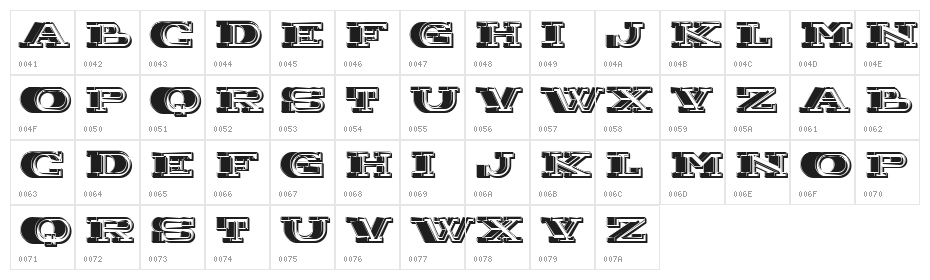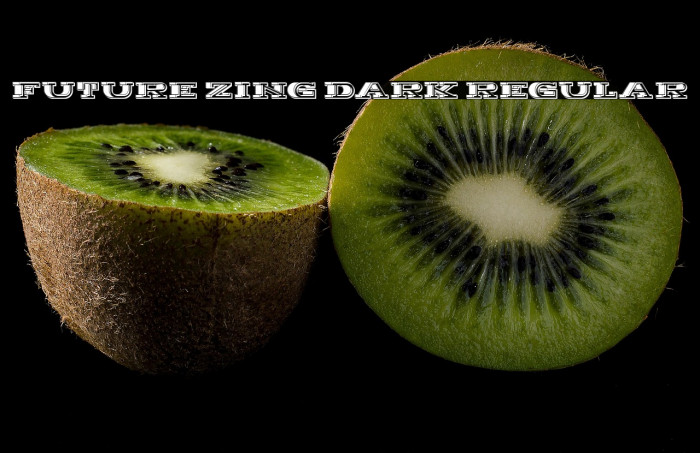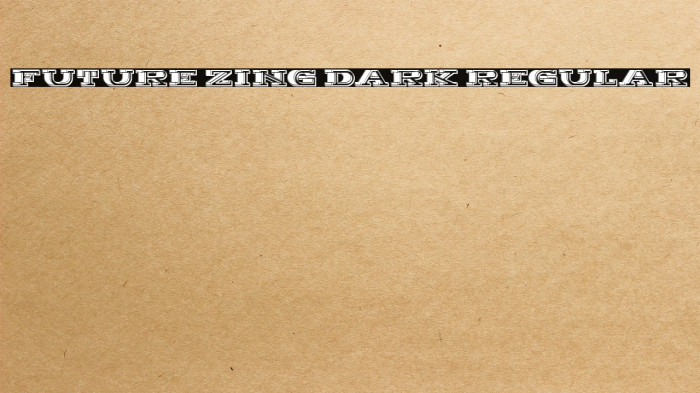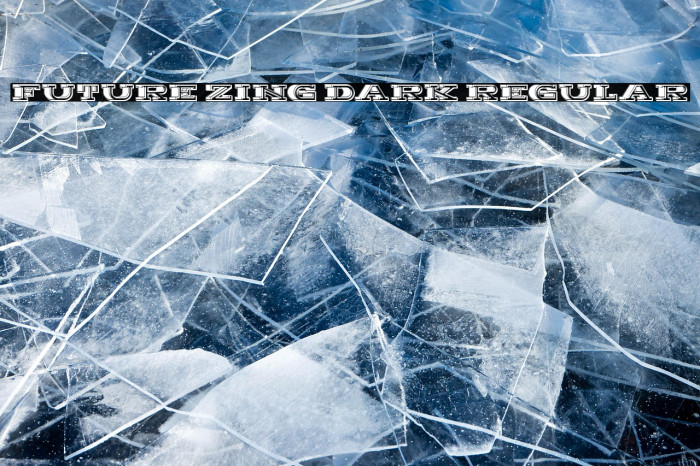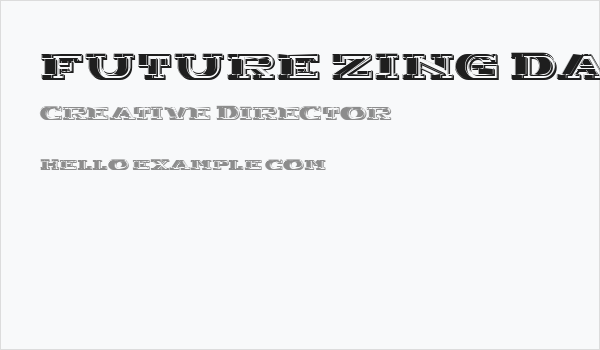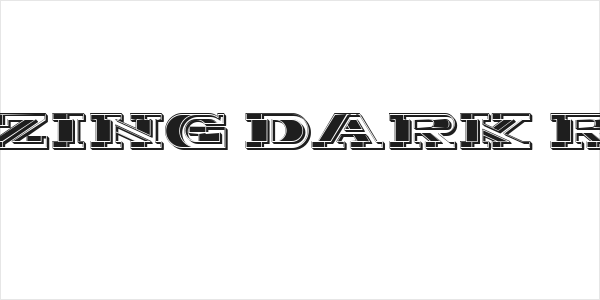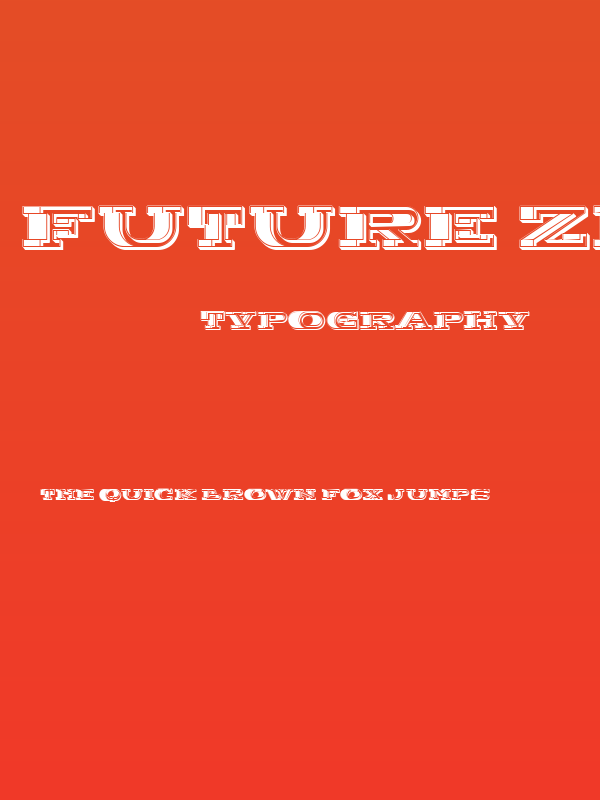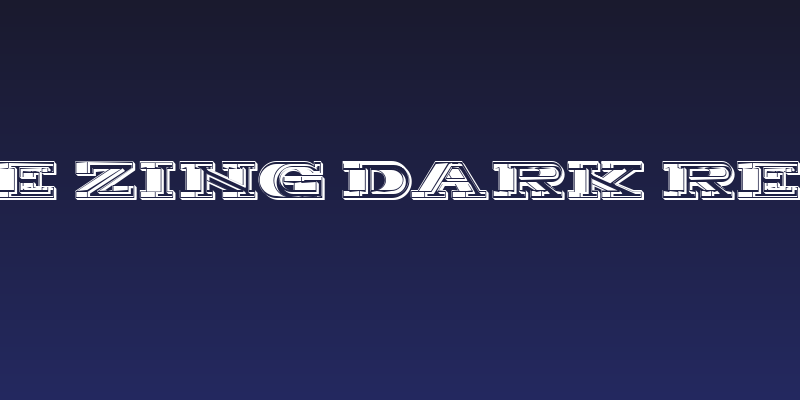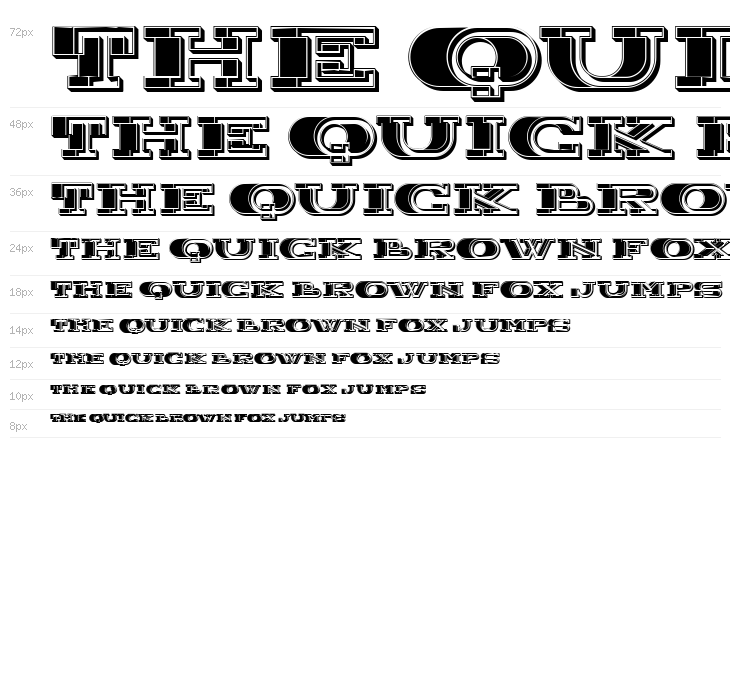
Future Zing Dark Regular Font
Future Zing Dark Regular Description
This font features a bold, decorative style with a futuristic and edgy appearance. The characters are outlined with a thick, dark border, giving them a three-dimensional effect. The inner strokes are lighter, creating a striking contrast that enhances readability. The design incorporates angular and geometric elements, adding a modern and dynamic feel. The uppercase letters are particularly prominent, with unique embellishments that make them stand out. This font is ideal for projects that require a bold statement and a touch of modern flair.
| Proposed Projects | Ideal for branding, posters, headlines, and any project needing a bold, modern statement. |